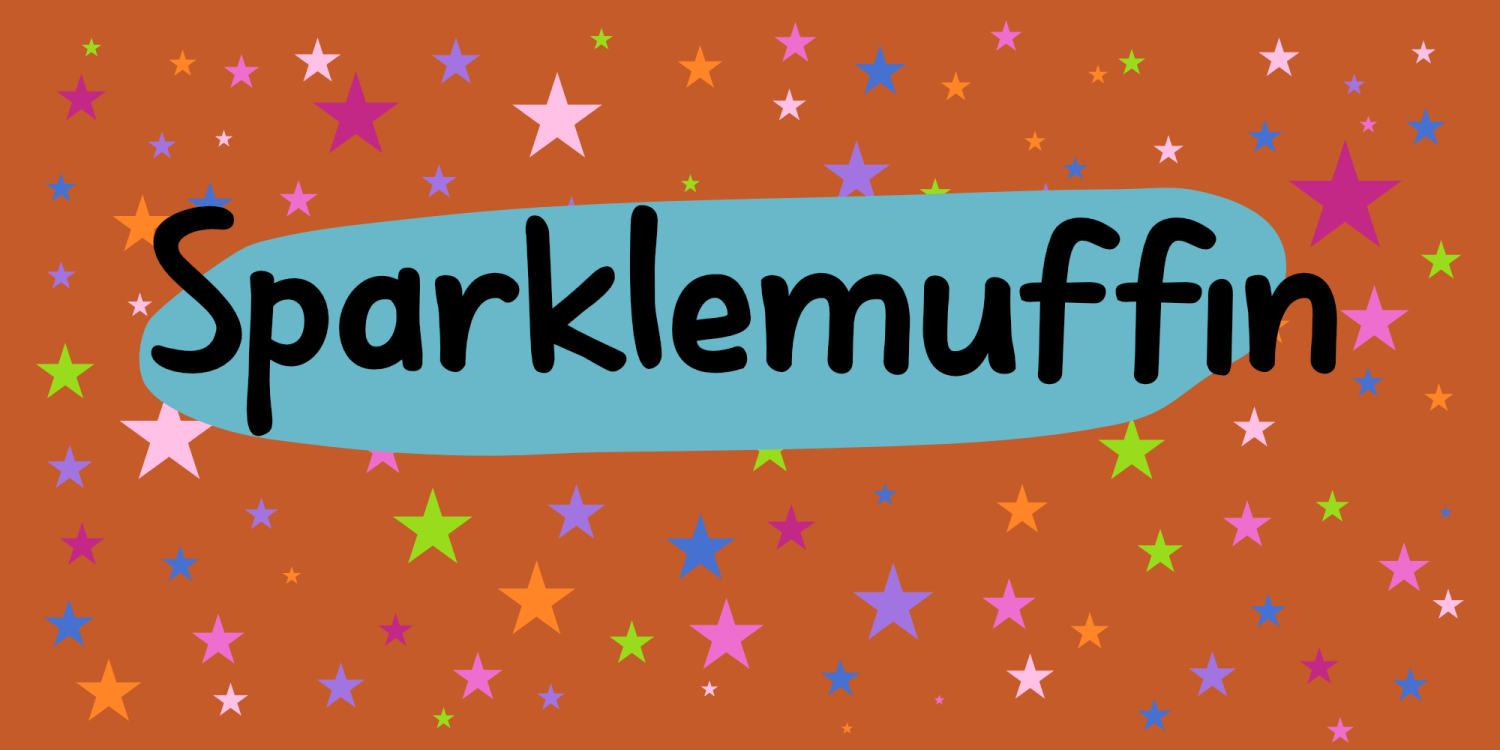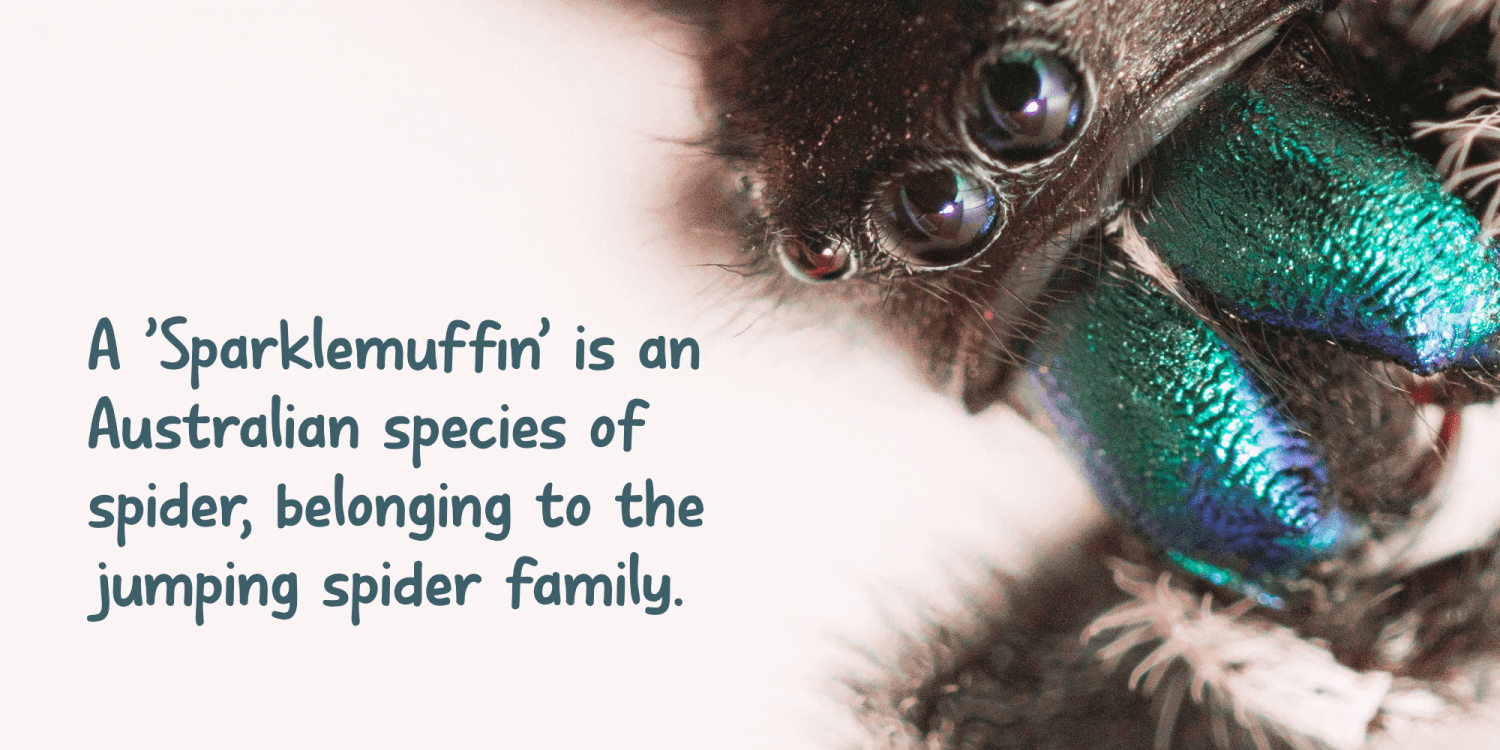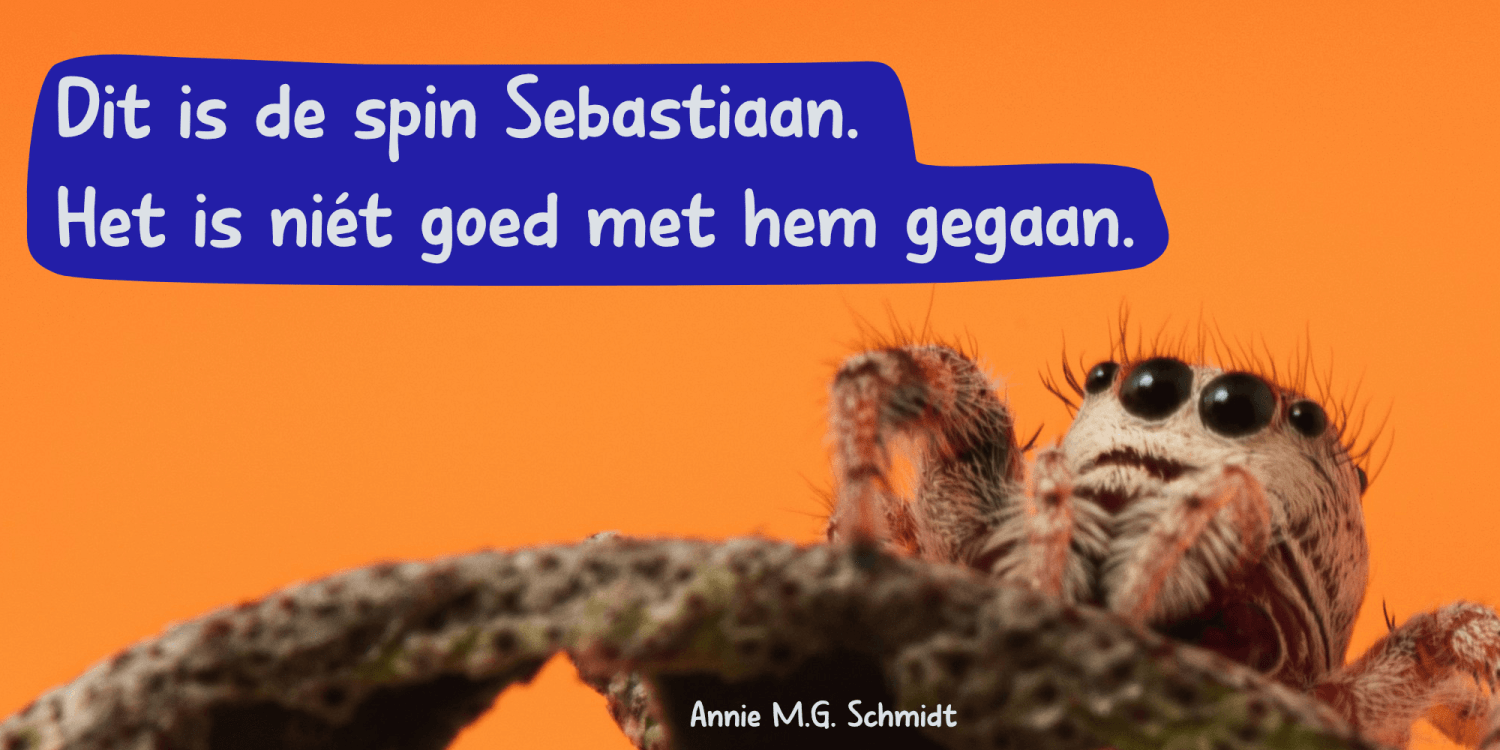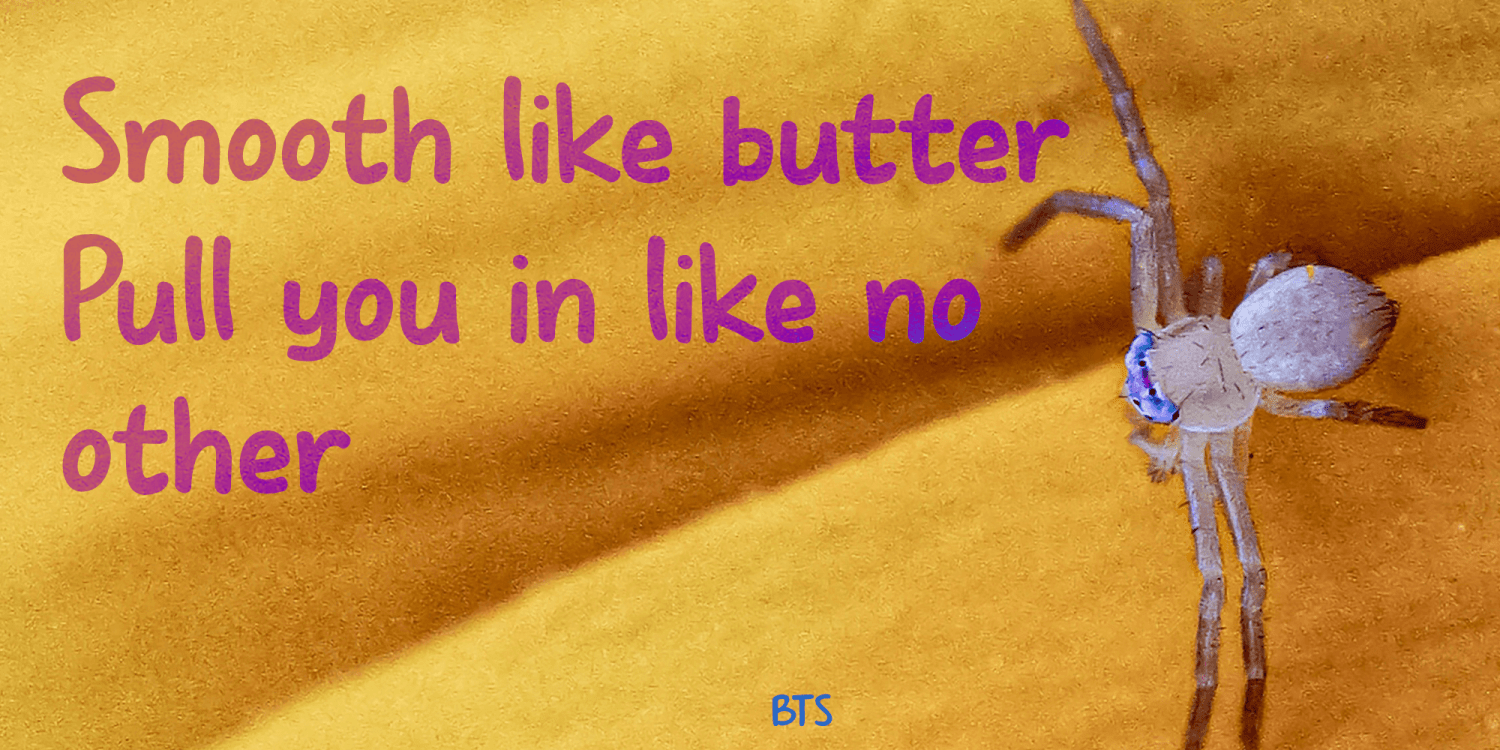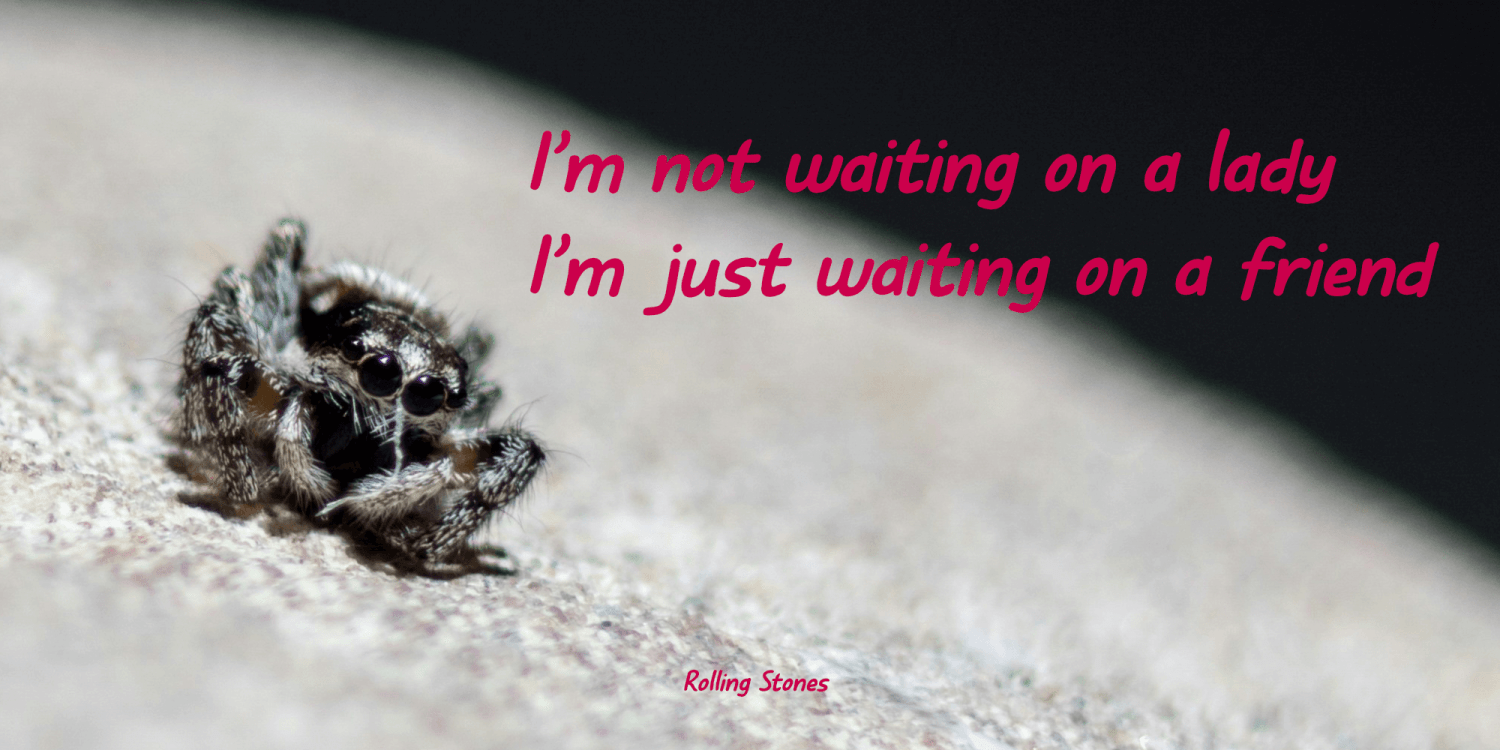
Sparklemuffin
A ‘Sparklemuffin’ is an Australian species of spider, belonging to the jumping spider family. I don’t know how I found out about this bizarrely named spider, but I decided to name this font after it!
Sparklemuffin is a reincarnation of a really old font called Shesek. I made it back in the day and the original Shesek font only had one upper case letter set for both the upper and lower case. I thought it deserved some renewed attention and created Sparklemuffin.
Sparklemuffin comes with extensive language support, a really nice set of lower case letters, improved upper case letters and a good assortment of non-letter glyphs.